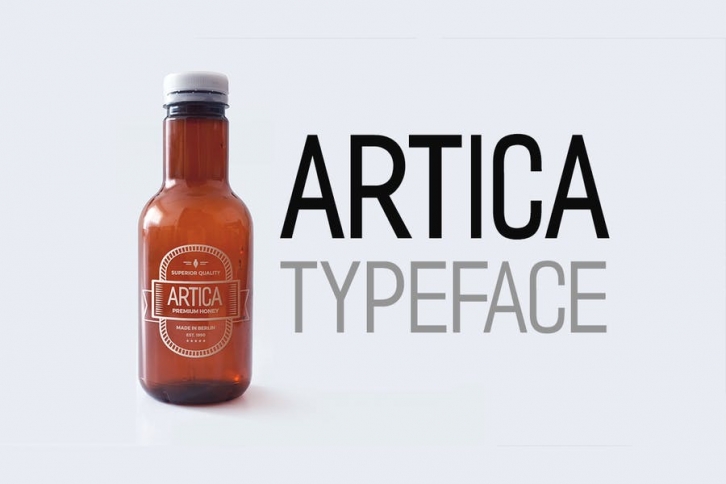
ARTICA - Display / Sans-Serif Typeface + Web Font Download
ARTICA is a modern display / headline Sans-Serif typeface inspired from European street letter boards and airport terminals. ARTICA will be best choice for creating nicely looking headlines and logos that you find in fashion stores and premium clothing labels. The font comes with 3 weights (Light / Regular / Bold) with all formats including Web Fonts.